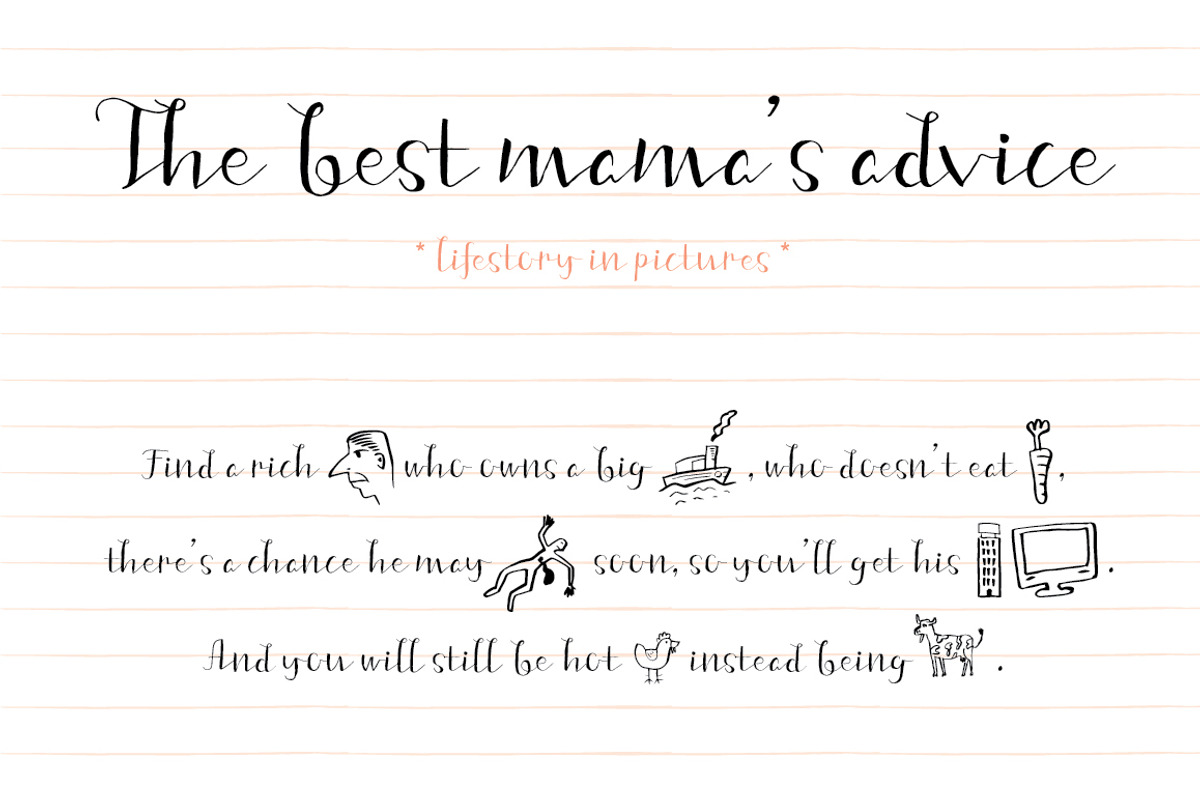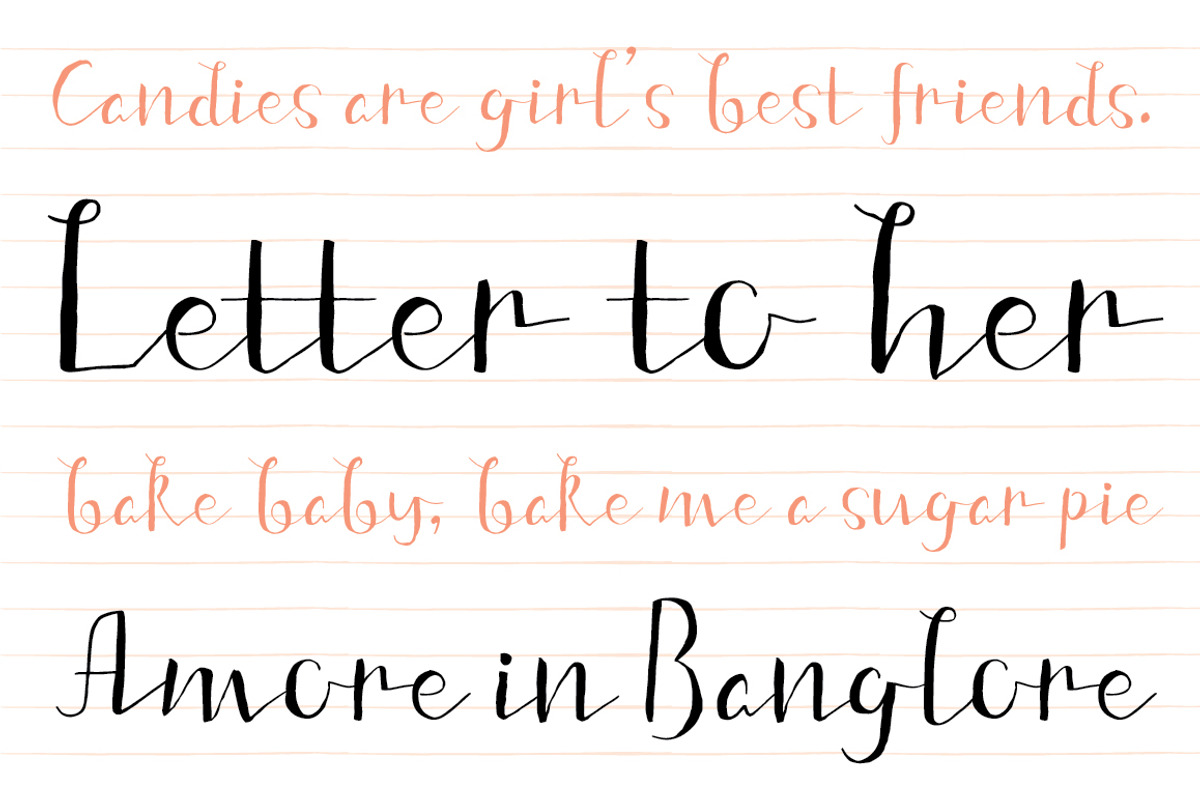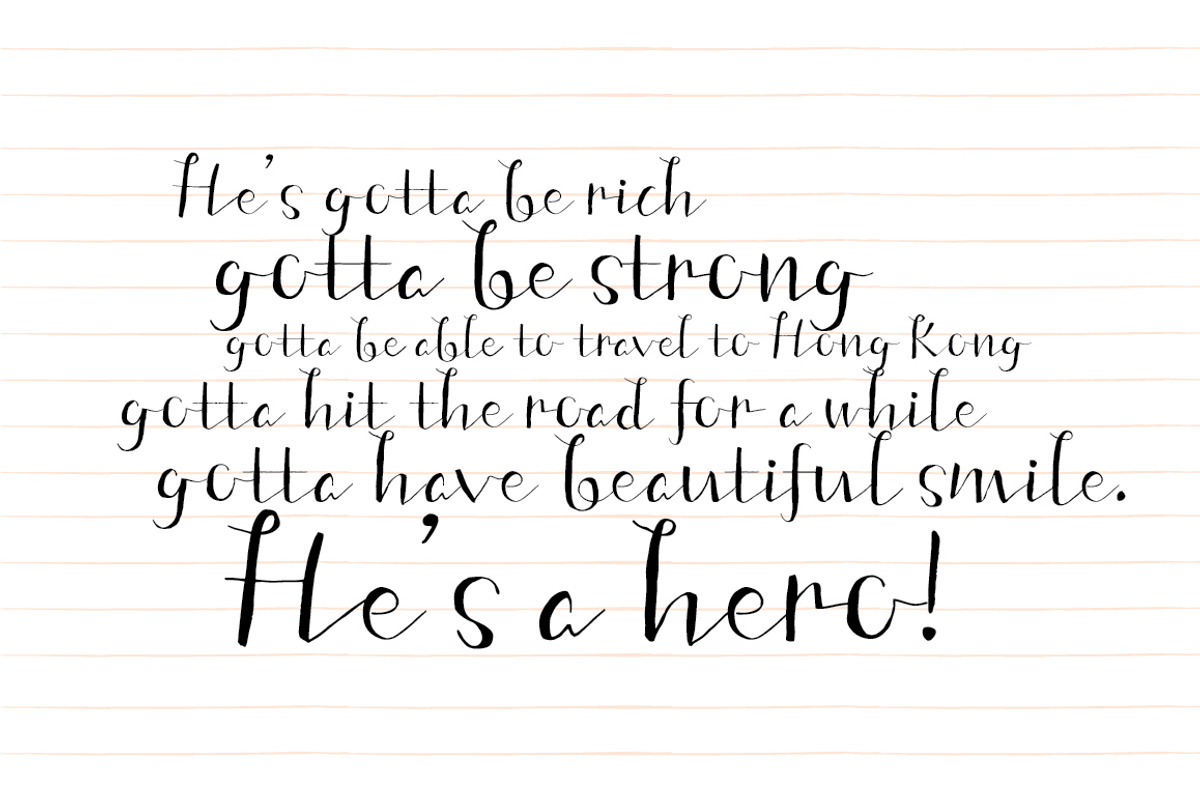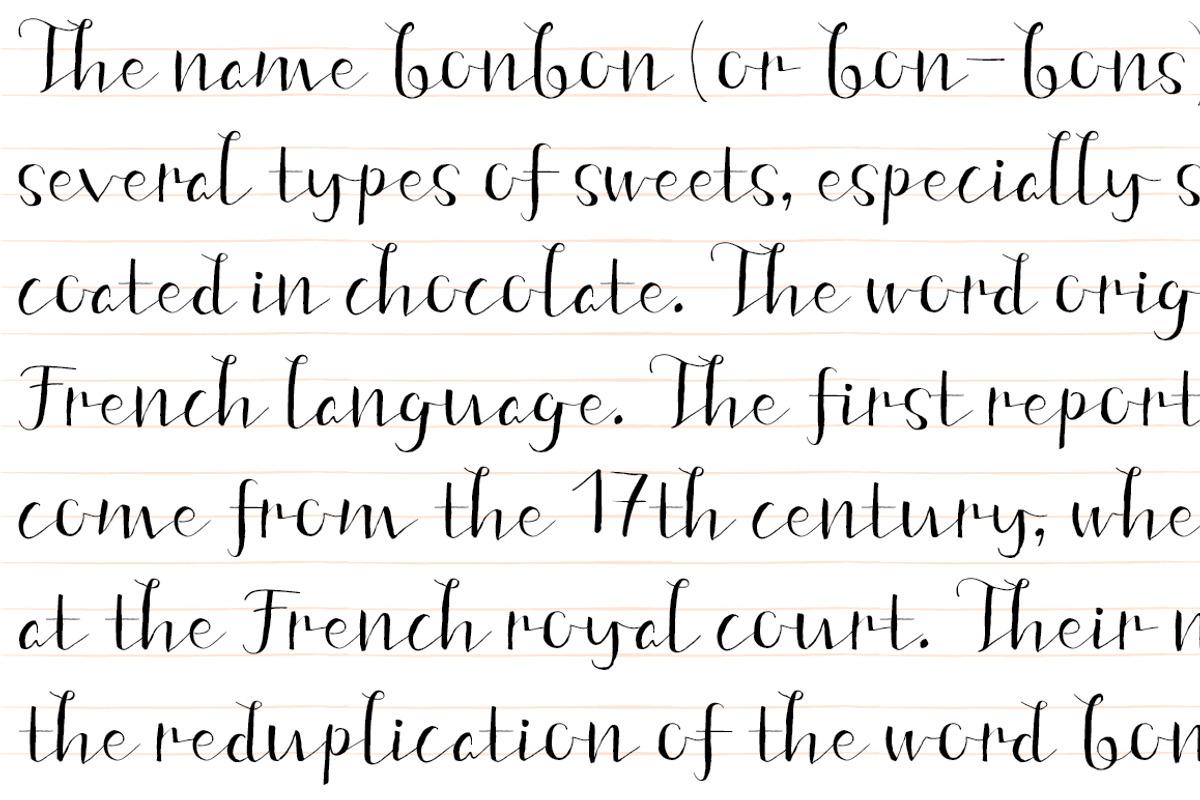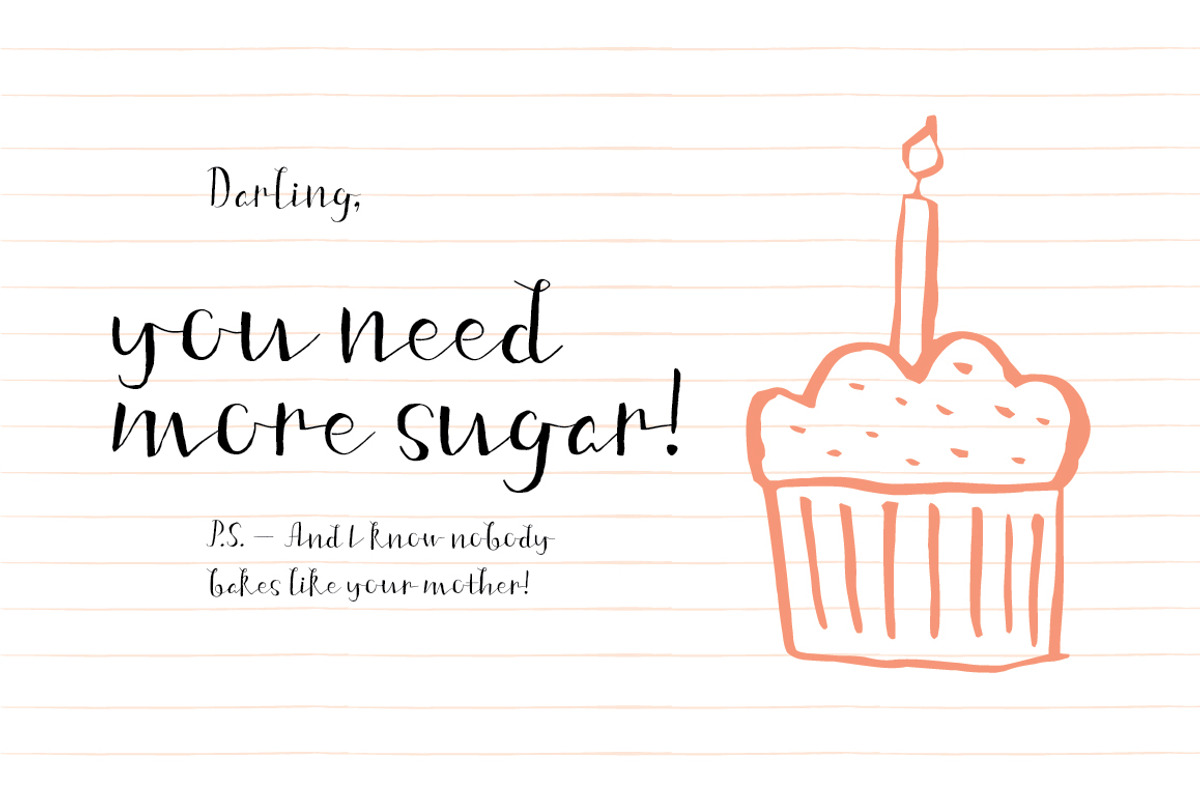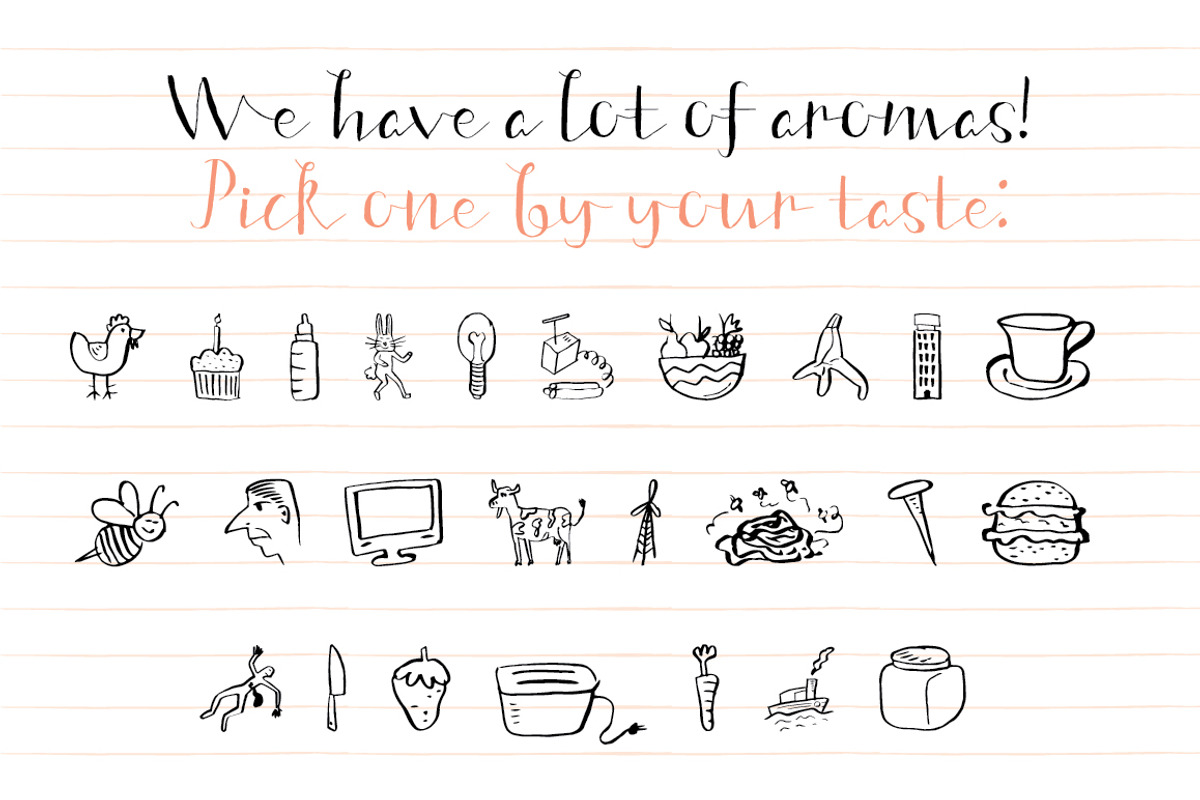
Fine New Bonbons font family
Fine New Bonbons font family by Tour de Force FF is a font selected for branding, posters, packaging, typography.
Why Fine New Bonbons font family is worth a look
Fine New Bonbons font family by Tour de Force FF fits naturally into Branding, posters, packaging, typography.